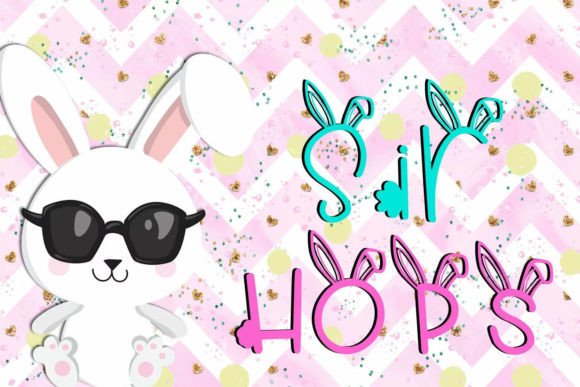
Looking for the perfect Easter font for your next project? Look no further than Sir Hops! This adorable decorative font, created by NicholeAndrew, features playful bunny ears and tails that will add a fun touch to any design. But Sir Hops isn't just cute - it's also incredibly versatile, making it the best font for teaching English to young learners.
With its optimized nodes for cutting, Sir Hops is perfect for adding names to Easter eggs, monogramming baskets or shirts, or creating any other Easter-themed project. But don't stop there - this font is also great for any project that needs a touch of whimsy, from children's books to party invitations.
But what really sets Sir Hops apart is its ability to evoke a sense of joy and playfulness in anyone who sees it. The bunny ears and tails are so charming, they're sure to bring a smile to your face - and to the faces of anyone who receives your Easter projects. Whether you're a designer, teacher, or just someone looking to add a bit of fun to your work, Sir Hops is the perfect font for you.